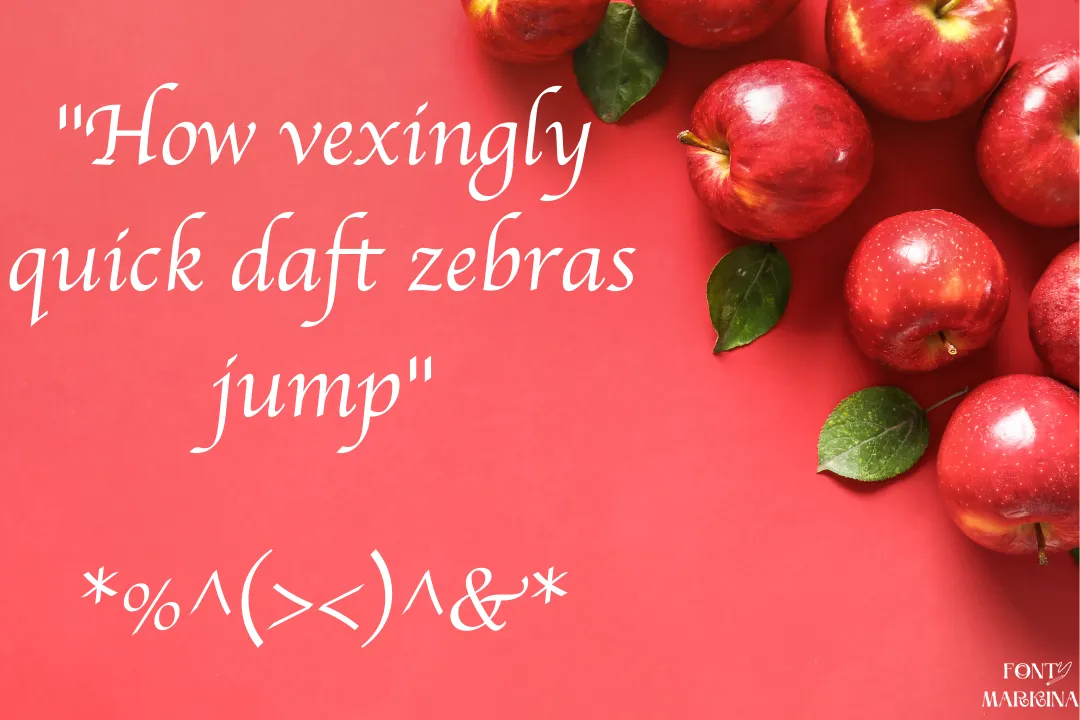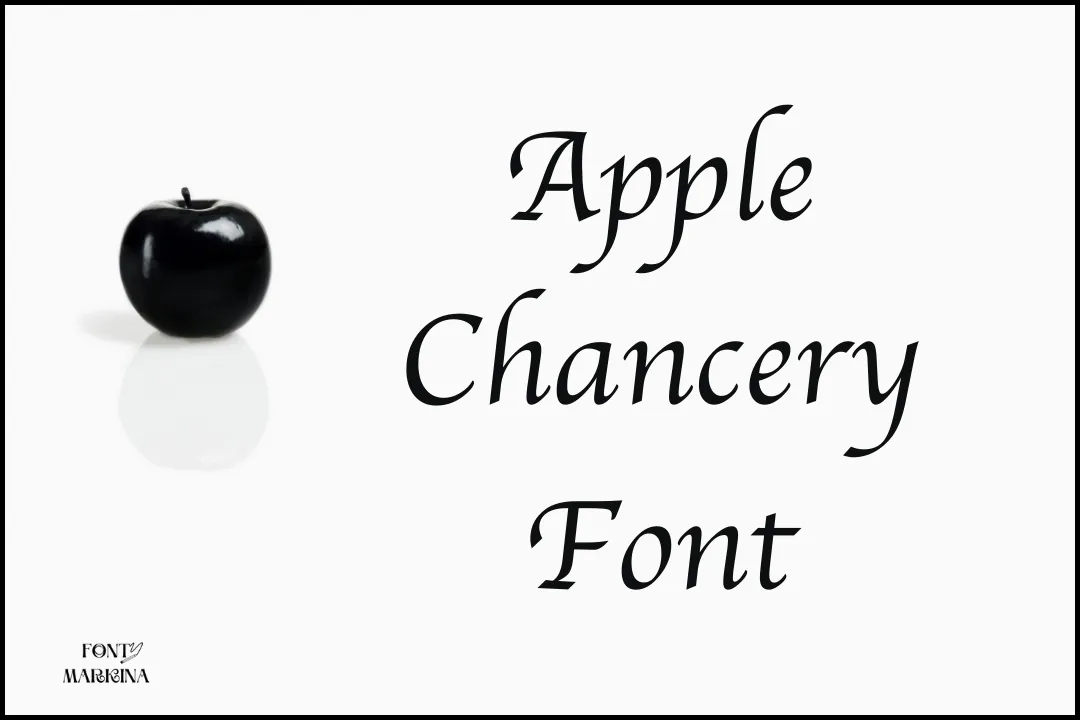
Apple Chancery Font is a Fancy family that is specially created for Apple company. It is a beautiful script font known for its elegant curves and readability.
Apple Chancery typeface was designed by a remarkable graphic developer named Bigelow & Holmes Inc. He already published multiple fonts in the font market. Jack Stauffacher an experienced designer, taught him typography in 1967.
In addition, this font was built to be used for international levels, such as CSS programs, canvas, and Adobe. It includes bold, italic, and regular style. A lot of similar fonts to this typeface are available on Google Fonts. It provides you most suitable future for your creations.
Tips for Using Apple Chancery Font Effectively
Pair with Simple Fonts: To ensure readability, pair Apple Chancery with simpler fonts like Arial or Helvetica.
Use in Headers: Make your headers stand out by using Apple Chancery for a sophisticated look.
Customize for Impact: Experiment with different colors and sizes to see what works best for your design.
If you are a YouTube user, this will help you create YouTube thumbnails, video editing, and many other projects. You can combine it with moana font. This font is also very perfect for all your tasks.
What is Apple Chancery font?
This stunning typeface looks like a fancy font family and is prepared for all your fun designs and tasks.
Who created the Apple Chancery texture?
Apple Chancery typeface was designed by a remarkable graphic developer named Bigelow & Holmes Inc.
Where can I use Apple Chancery font?
You can easily use Apple chancery type for advertisement tasks, social media posts, Instagram bio descriptions, and much more.